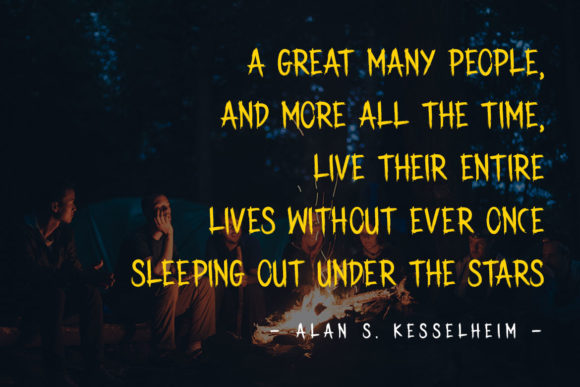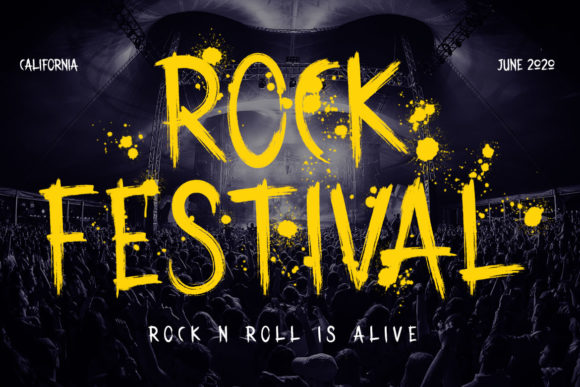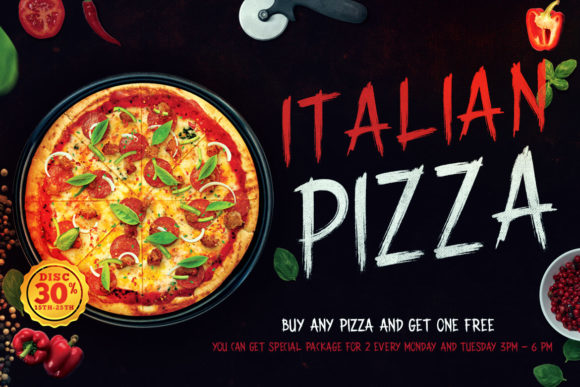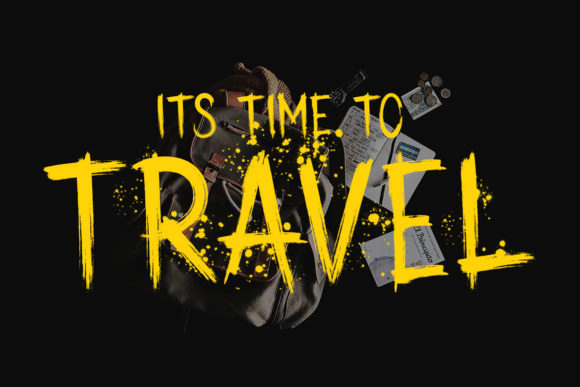
Introduction to Rampage Font
Remember that moment when you’re working on a creative project and you need that one special element to bring it all together? For designers, it’s like searching for the perfect brushstroke to add a personal touch. You’ve probably scrolled through countless design resources, searching for the perfect font to elevate your DIY project. And then, you stumble upon it – the Rampage Font.
With its unique blend of a brush pen and pencil, the Rampage Font is an absolute game-changer. Its endearing and authentic design makes it a valuable asset for any creative project. And the best part? It’s available as a free download with a transparent background, making it easy to integrate into your design.
Whether you’re a seasoned designer or just starting out, the Rampage Font is a high-quality design resource that’s sure to add a touch of personality to your work. In this article, we’ll dive into the world of this stunning font and explore its many uses and benefits.
Key Features of Rampage Font
- Unique, bold, and aggressive font style ideal for creative projects requiring a strong visual impact.
- Designed to be highly legible, even at smaller font sizes, making it perfect for headings, titles, and bold statements.
- Can be used in a variety of design contexts, from graphic design and digital art to web design and print materials.
Honest Review: Rampage Font
I recently stumbled upon the Rampage Font and was excited to give it a try. As a designer, I’m always on the lookout for high-quality design resources that can elevate my creative projects.
The Rampage Font offers a free download, which is always a plus in my book. Upon opening the font, I was pleased to find that it includes a transparent background, making it easy to integrate into any design.
- High-quality design that’s perfect for creating eye-catching headlines and titles
- Transparent background makes it easy to layer over other design elements
- The font is a bit limited in terms of font styles and variations
- May not be suitable for large blocks of text due to its bold, attention-grabbing design
Overall, I’m impressed with the Rampage Font, but I think it’s best suited for specific design projects where a bold, attention-grabbing font is needed. With a bit more development, I think this font has the potential to be a top design resource.
Tips for Getting the Most Out of Rampage Font
To get the most out of the Rampage Font, use it on a transparent background to create a bold, eye-catching design. Experiment with different font sizes and colors to add depth and visual interest to your creative project.
The Rampage Font is ideal for use in logos, titles, and headings in creative projects, such as brochures, posters, and social media graphics. Its bold, modern design makes it perfect for conveying energy and excitement in your high-quality design.